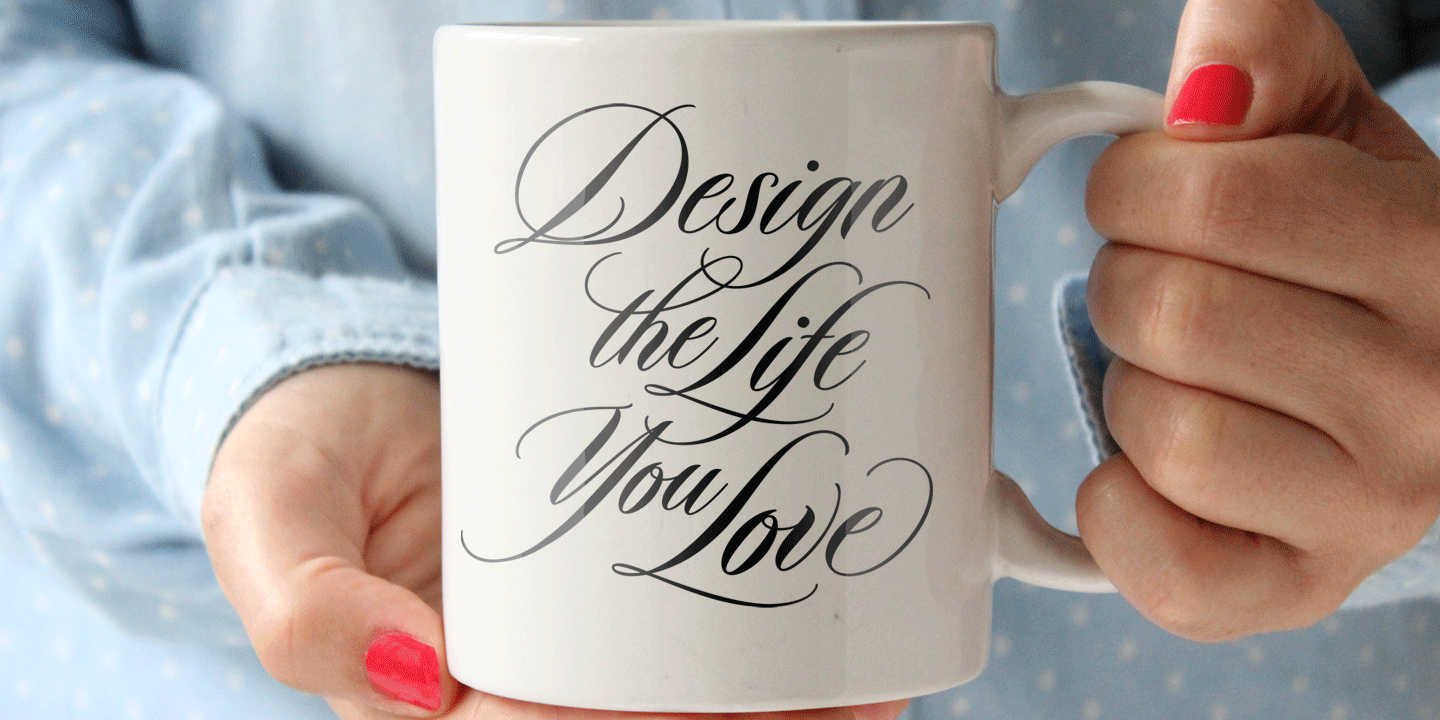
Duende Font is perfect for fantasy book covers, mystical branding projects, magical event invitations, folklore-themed designs, enchanted forest signage, spiritual wellness centers, fairy tale illustrations, medieval restaurant branding, magical realism book layouts, and supernatural storytelling materials. This ethereal, mystical typeface excels in applications where enchantment, spiritual energy, and otherworldly charm need to be communicated with captivating mystery and supernatural allure.
Duende Font is exciting because it embodies the magical essence of folklore spirits and mystical creatures with every enchanted letterform. Its organic, flowing characteristics and supernatural texture details create an immediate connection to ancient wisdom and magical realms. The font's distinctive ethereal qualities and mystical construction make it particularly compelling for brands seeking to communicate spirituality, mystery, and authentic magical experiences in their enchanting visual storytelling.
The Duende Font family includes various mystical styles: Regular, Light, Shadowed, and Ornamental versions, each maintaining the characteristic supernatural aesthetic while offering different levels of magical intensity and visual enchantment. These variations provide designers with comprehensive tools for creating layered mystical compositions and achieving perfect balance between otherworldly mystery and practical readability.
For designers creating fantasy brands or supernatural-themed projects, Duende Font Free Download offers authentic mystical character with versatile design functionality. Whether you're developing spiritual wellness identities, fantasy entertainment materials, or magical product branding, this enchanting typeface provides the perfect foundation for conveying supernatural authenticity and mystical appeal. The font's extensive character set includes magical symbols and decorative elements that enhance fantasy design compositions and supernatural brand storytelling.